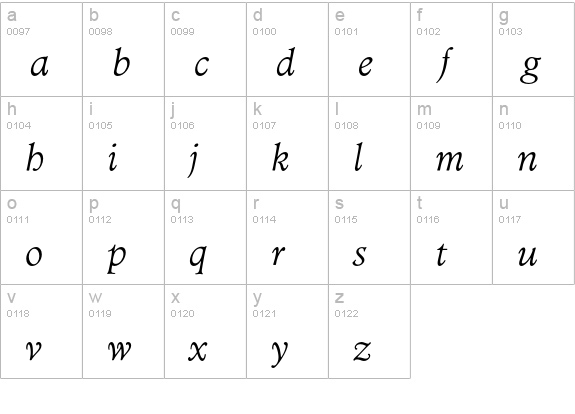
MinisterEF-LightItalic Font Details
MinisterEF-LightItalic font is a sophisticated and elegant typeface that exudes a sense of grace and refinement. Its delicate and slender letterforms make it perfect for adding a touch of sophistication to any design project. The light italic style of MinisterEF-LightItalic font adds a sense of elegance and fluidity to your text, making it ideal for use in branding, invitations, and editorial designs. What makes MinisterEF-LightItalic font even more appealing is that it is available for free download at FontsMarket.com. This means that you can easily incorporate this stunning font into your projects without any cost. Don't miss out on the opportunity to enhance your designs with the beauty of MinisterEF-LightItalic font - download it for free today at FontsMarket.com!